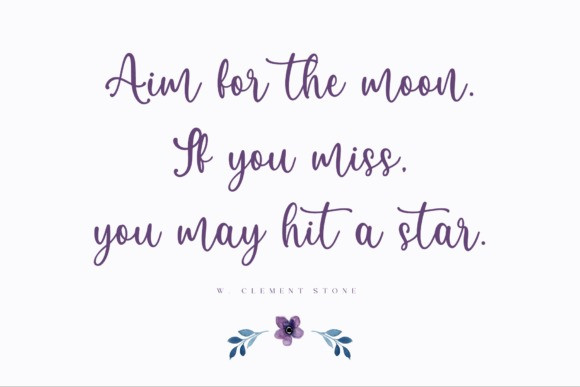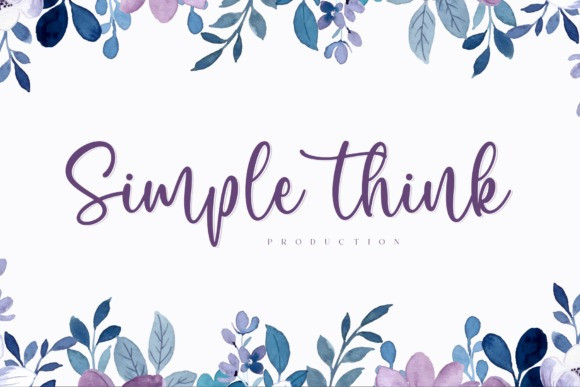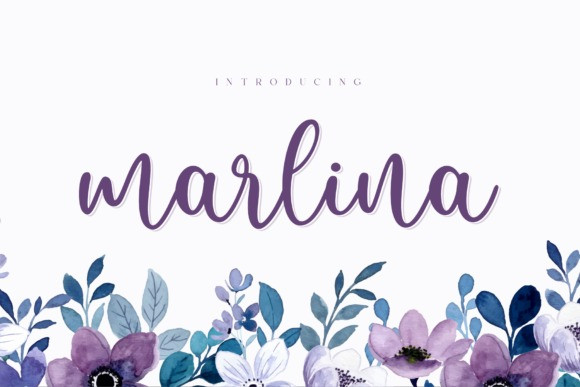
Marlina Font
Marlina Script Font is a lovely handwritten font featuring the perfect amount of trendiness. This font reads strong, confident, and dynamic and can add tons of nostalgic character to your designs. This font is PUA encoded which means you can access all of the glyphs and swashes with ease!